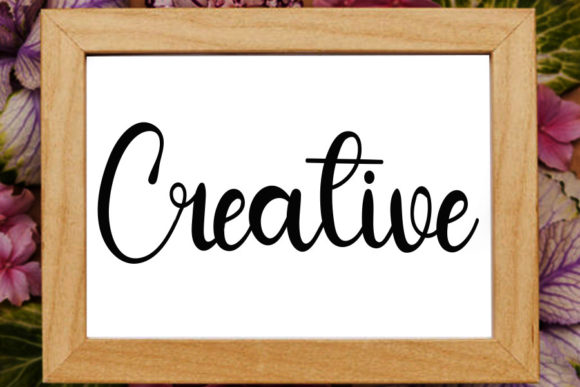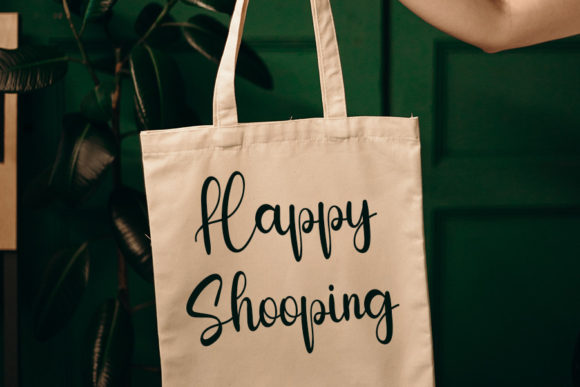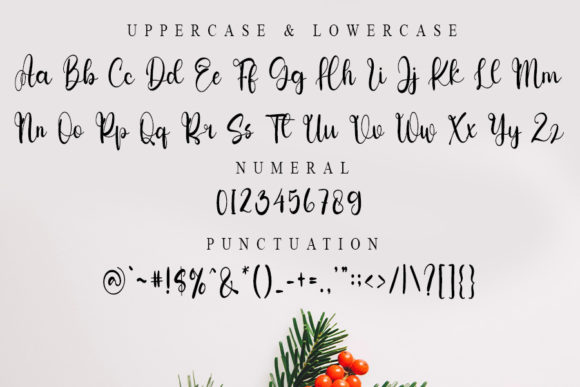
About Buttertime Font
Buttertime is a chic, refined script font that emanates sophistication and elegance. Its stylish alternates and ligatures make this font the perfect match for any project.